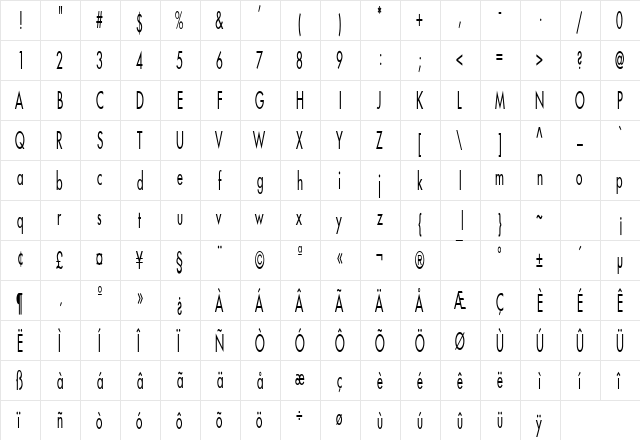
Fusi Thin Normal Font Preview
Fusi Thin Normal
Fusi Thin Normal Font Details
Design Context for Fusi Thin Typeface
Fusi Thin is a composed and adaptable typeface that performs quietly and consistently across a wide range of design contexts. Its slender proportions lend an understated elegance to any composition.